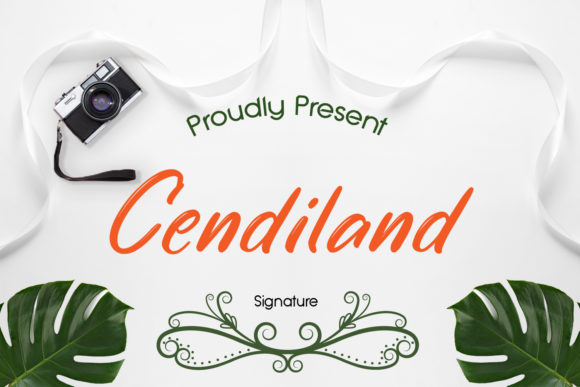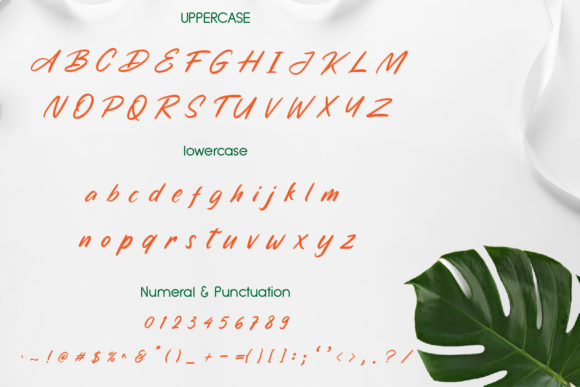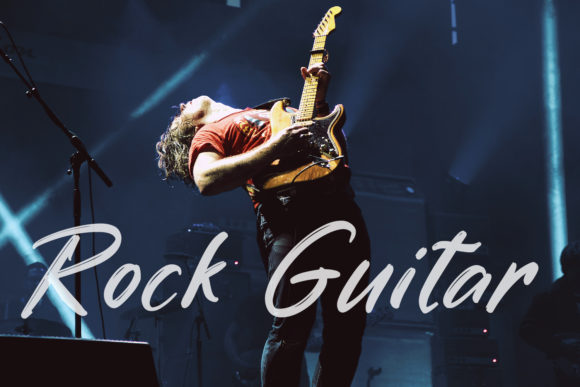
About Cendiland Font
Cendiland is a lovely and timeless handwritten font. It is the best choice for creating eye catching logos, branding and quotes. Every letter has a unique and beautiful touch, which will make your design come alive!